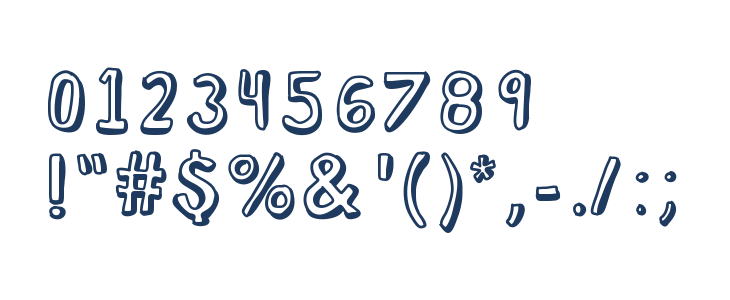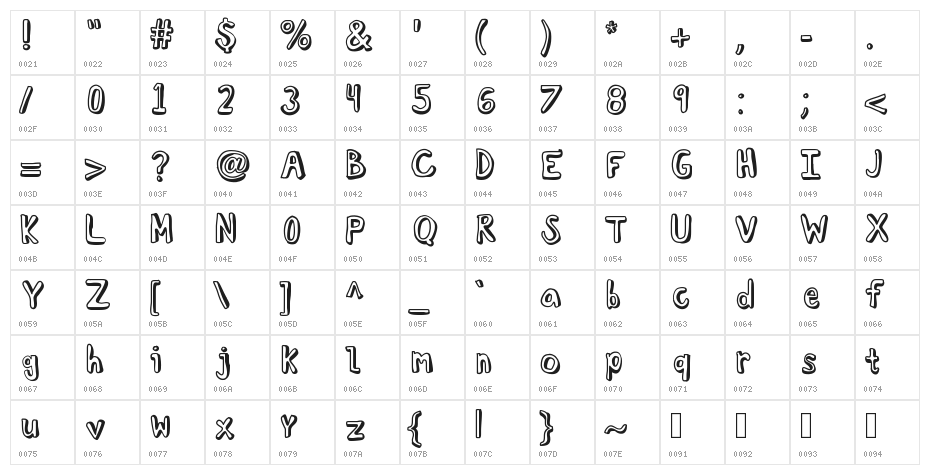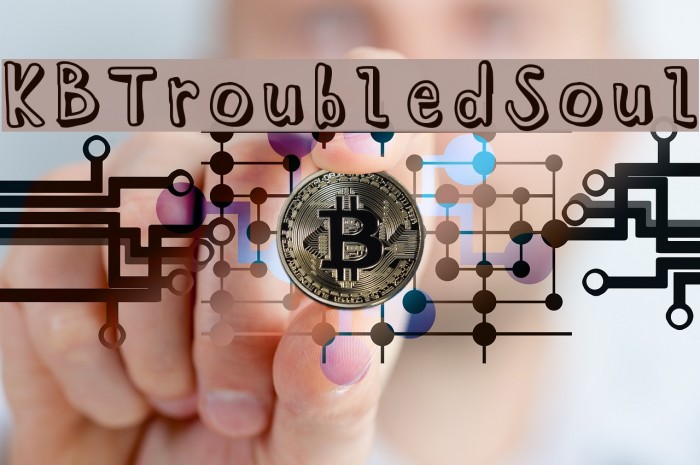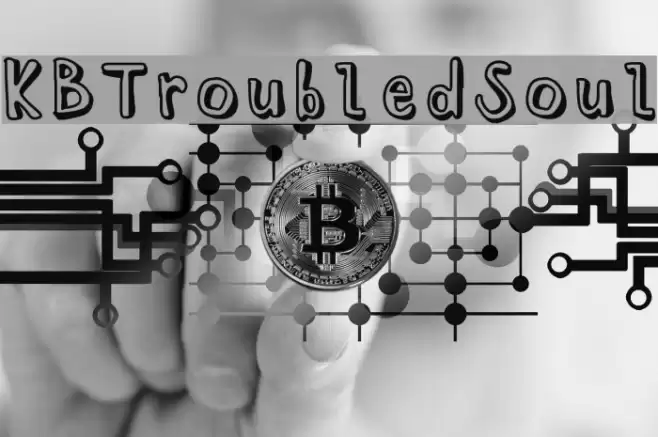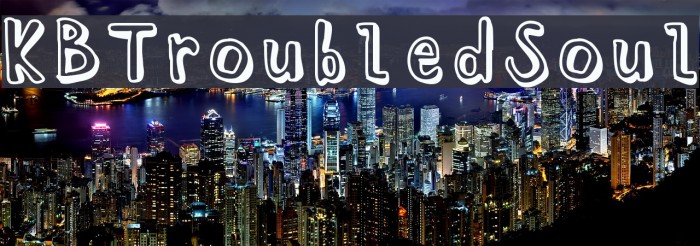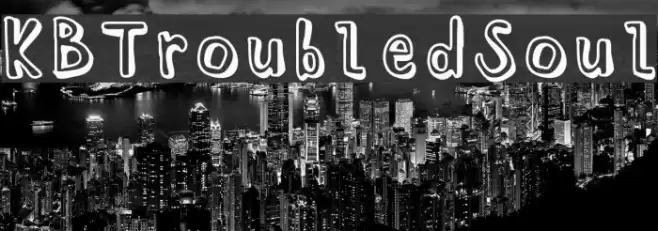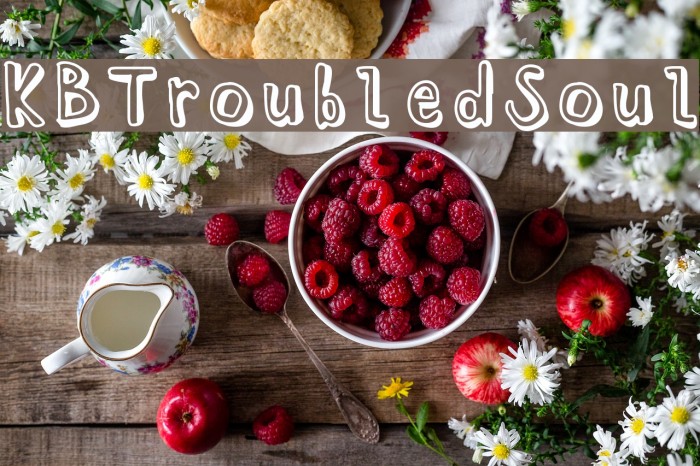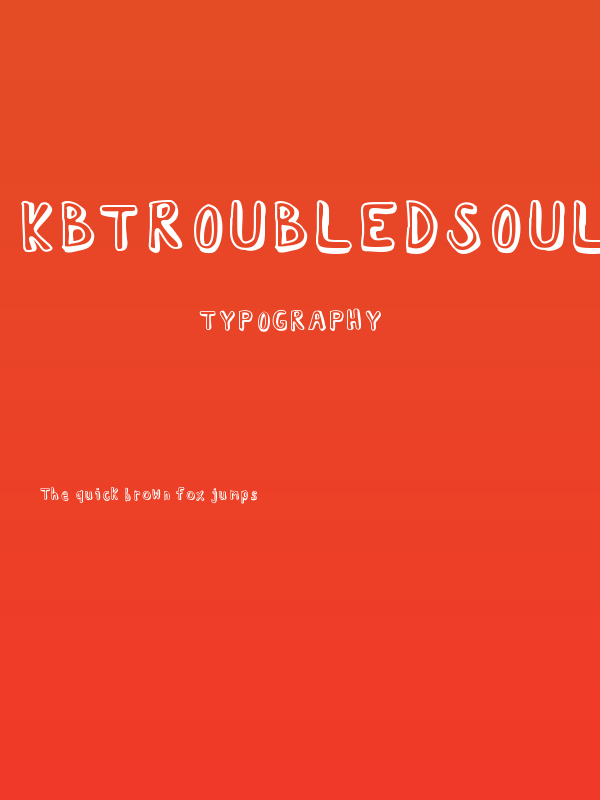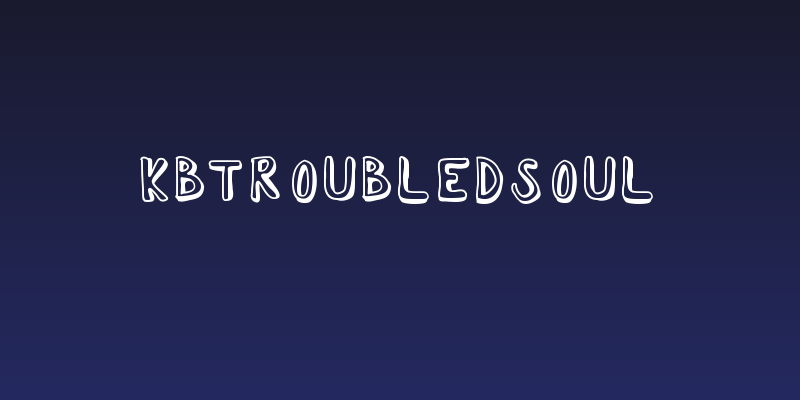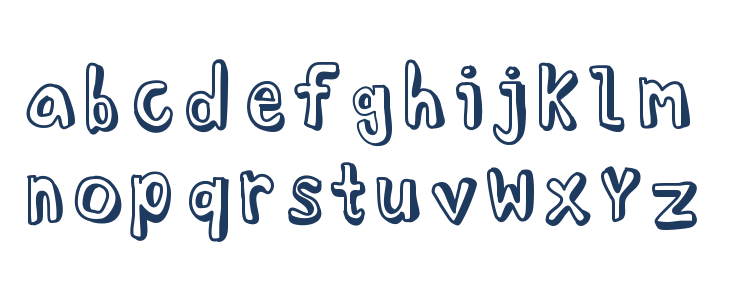
KBTroubledSoul Font
KBTroubledSoul Description
This playful and quirky font features bold, hand-drawn characters with a slightly uneven and whimsical appearance. Each letter is outlined, giving it a cartoonish and lively feel. The strokes are thick and consistent, adding to the font's boldness and making it stand out. The characters have a casual, informal style, reminiscent of doodles or comic book lettering. This font is designed to capture attention and convey a sense of fun and creativity. It includes a full set of uppercase and lowercase letters, numbers, and a variety of special characters, all maintaining the same energetic and dynamic style.
| Proposed Projects | Ideal for children's books, comic strips, playful branding, and creative posters. |